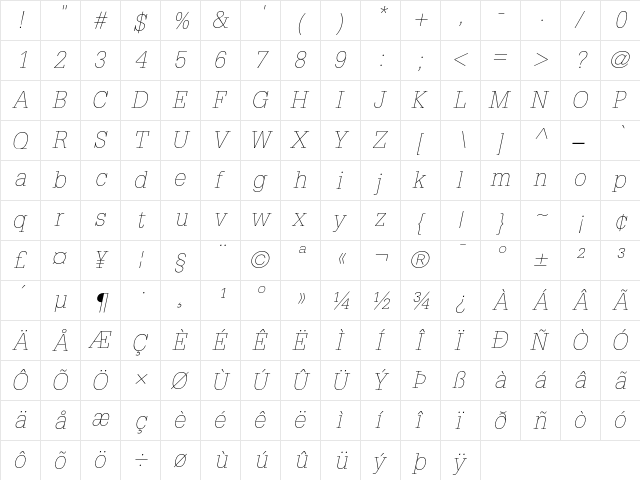
Glypha 35 Thin Oblique
Design Context for Glypha Typeface
Glypha offers clean, dependable letterforms without strong stylistic allegiance, making it a practical choice for designers who need flexibility. Its italic angle brings a sense of urgency and motion to the letterforms. Its slender proportions lend an understated elegance to any composition.